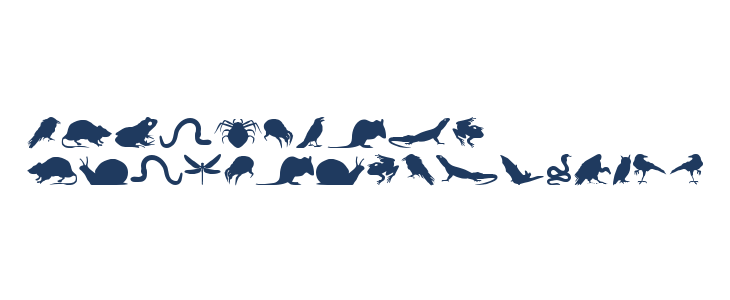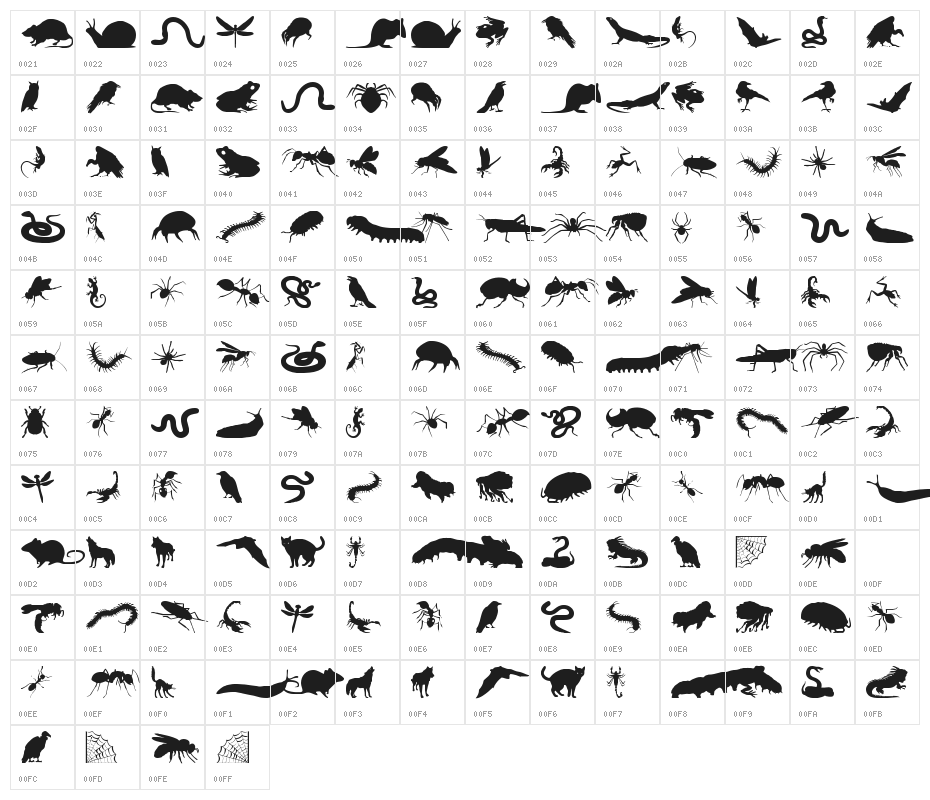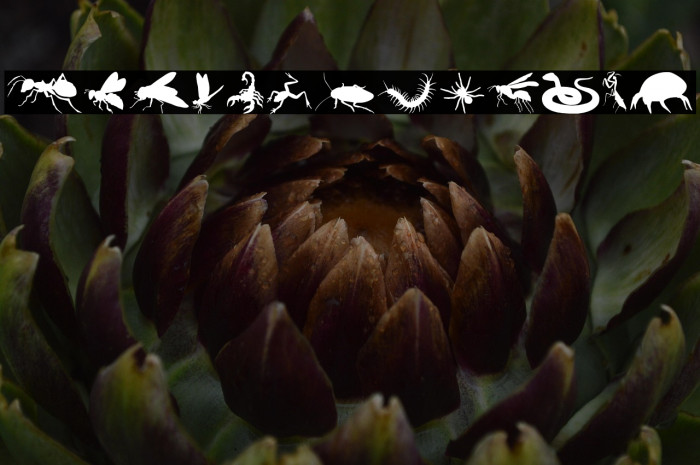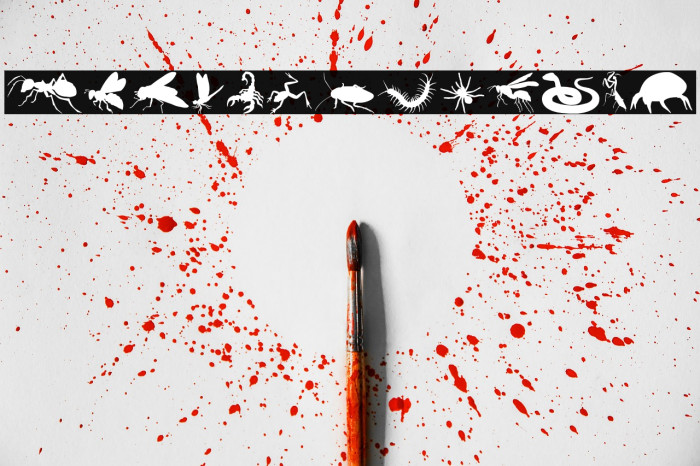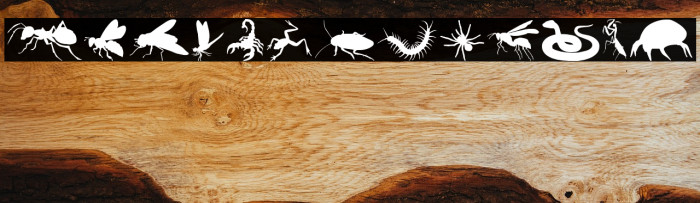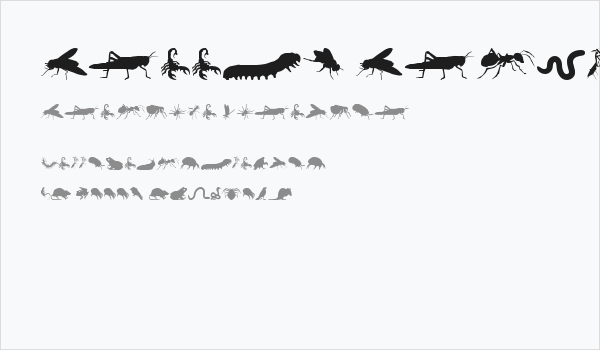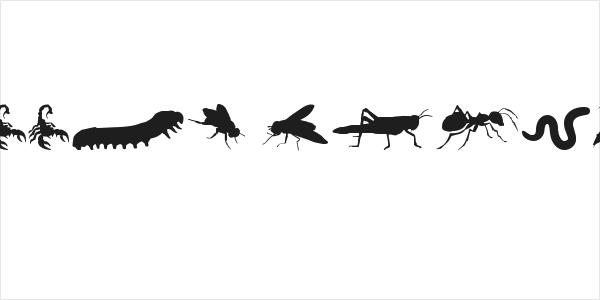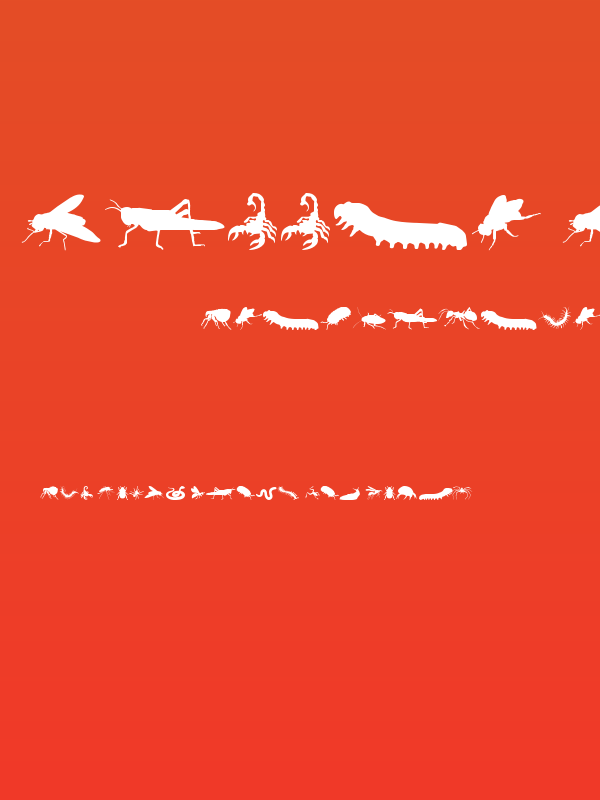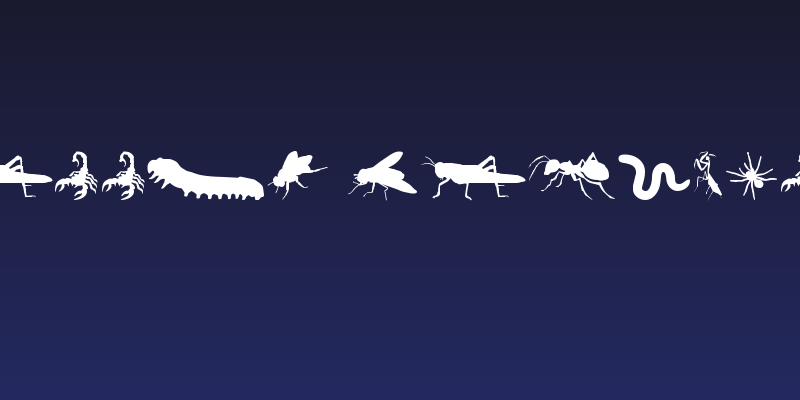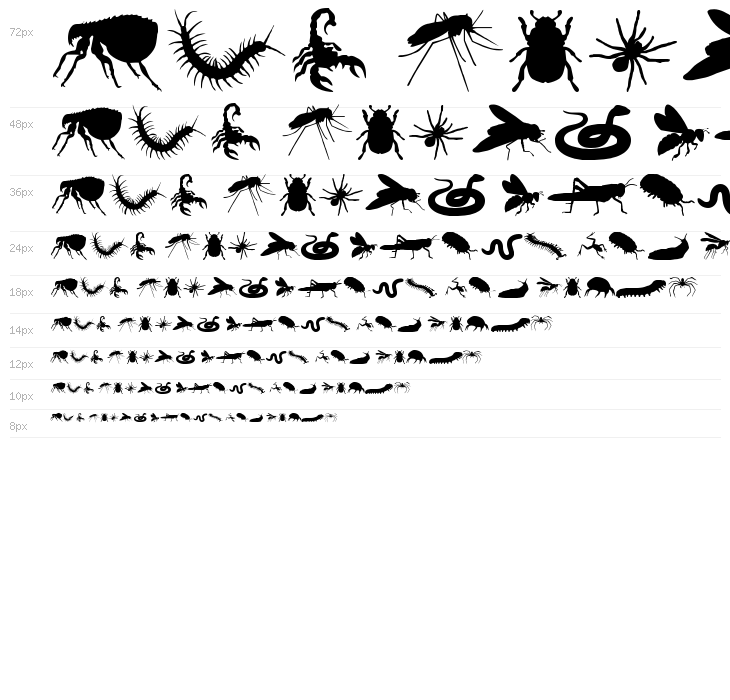
Creepy Crawlies Font
Creepy Crawlies Description
A decorative display font composed of silhouette illustrations of various insects, arachnids, reptiles, amphibians, rodents, and other small creatures, each glyph representing a different animal or bug in a bold, high-contrast style.
| Overall Style | Decorative, Thematic |
| Use Case | Logos, Headlines, Themed graphics, Educational visuals |
| Proposed Projects | Halloween invitations, educational materials, children's books, themed posters, science projects, party decorations. |